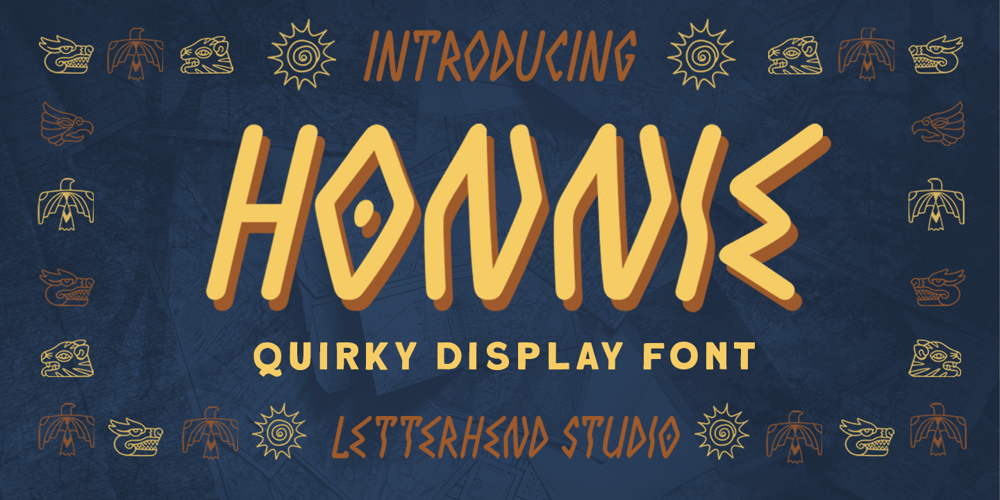
Honnie Font Family was designed by Hendry Juanda and published by Letterhend. Honnie contains 1 styles and family package options. Honnie is a quirky display font with unique and contemporary letterform. It comes with free illustration which is perfect to combined with this font. This type of font perfectly made to be applied especially in logo, headline, signage and the other various formal forms such as invitations, labels, logos, magazines, books, greeting / wedding cards, packaging, fashion, make up, stationery, novels, labels or any type of advertising purpose.Features : numbers and punctuation multilingual PUA encoded We highly recommend using a program that supports OpenType features and Glyphs panels like many of Adobe apps and Corel Draw, so you can see and access all Glyph variations. How to access opentype feature : letterhend.com/tutorials/using-opentype-feature-in-any-software/Email us to letterhend@gmail.com if you need something! Happy Designing!